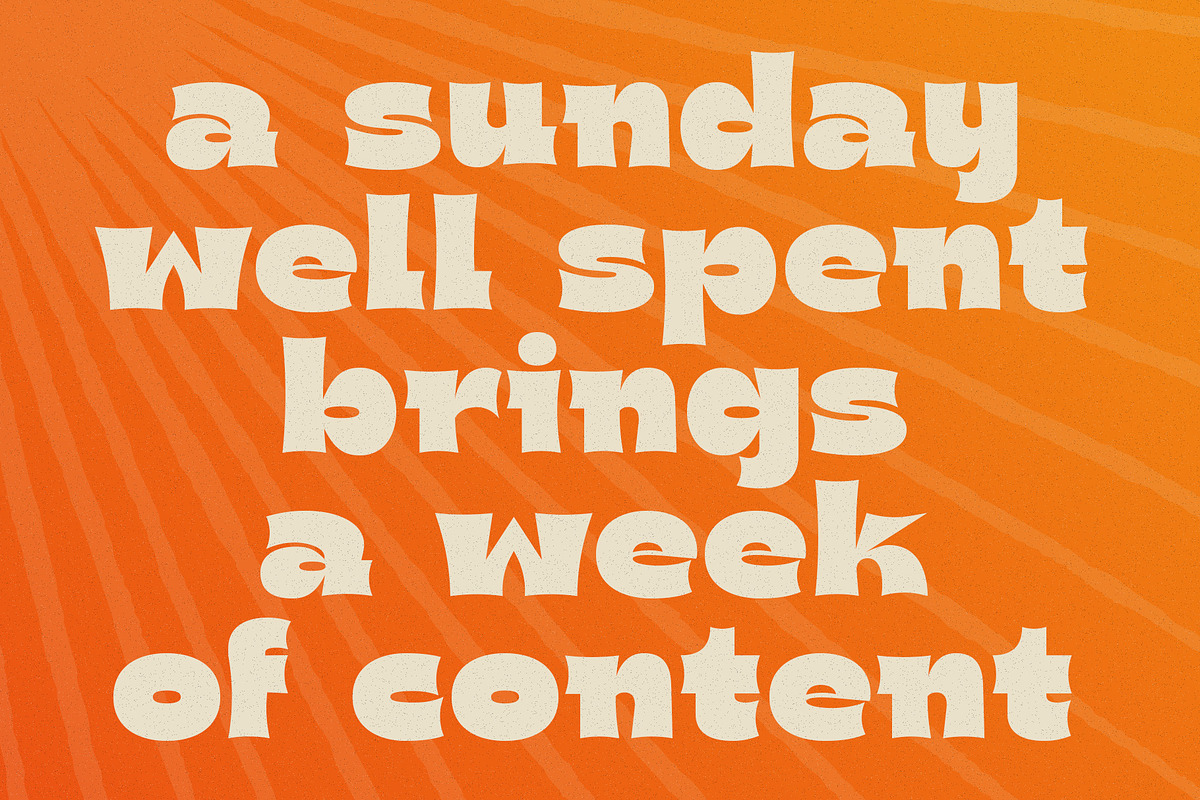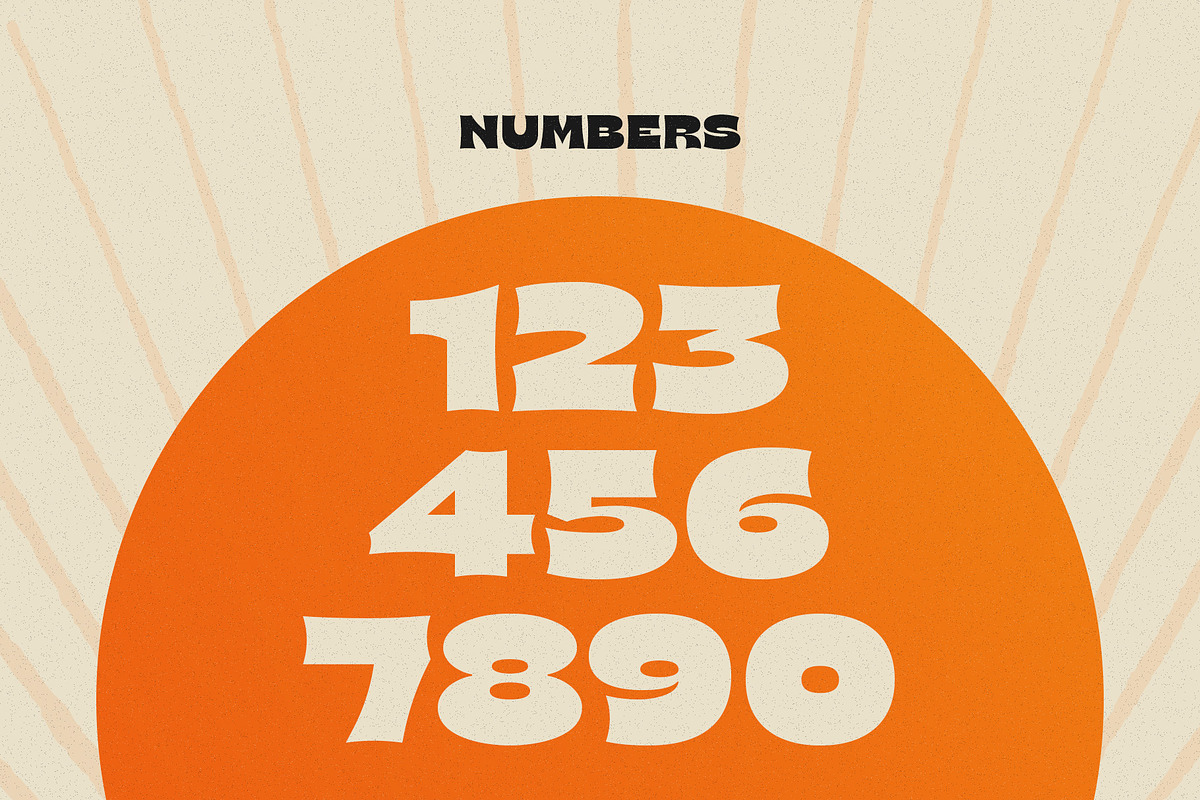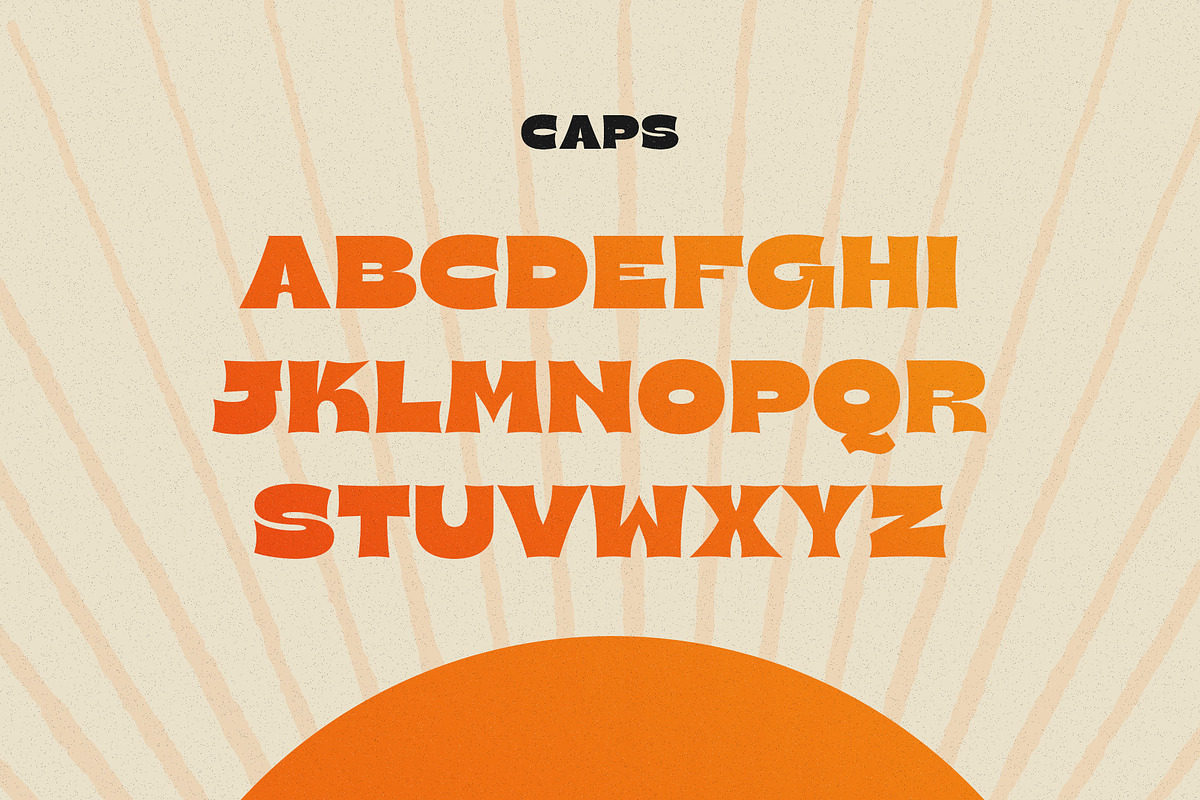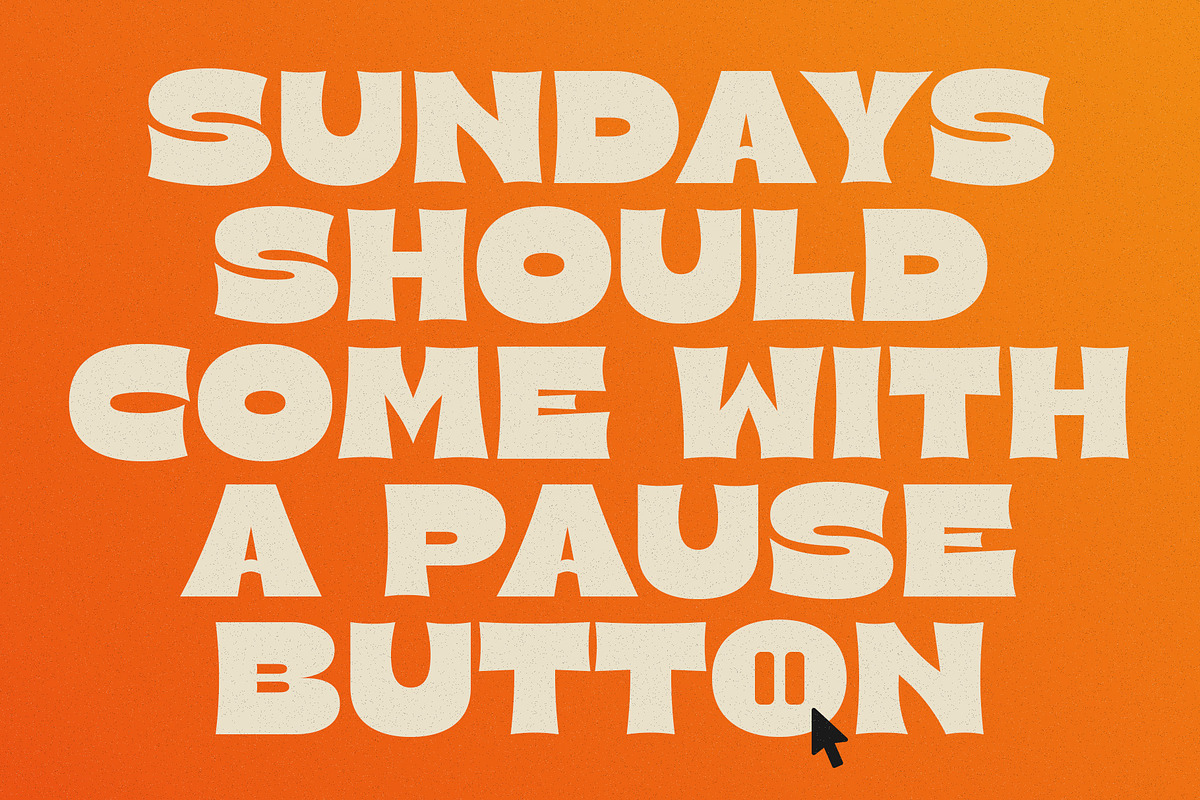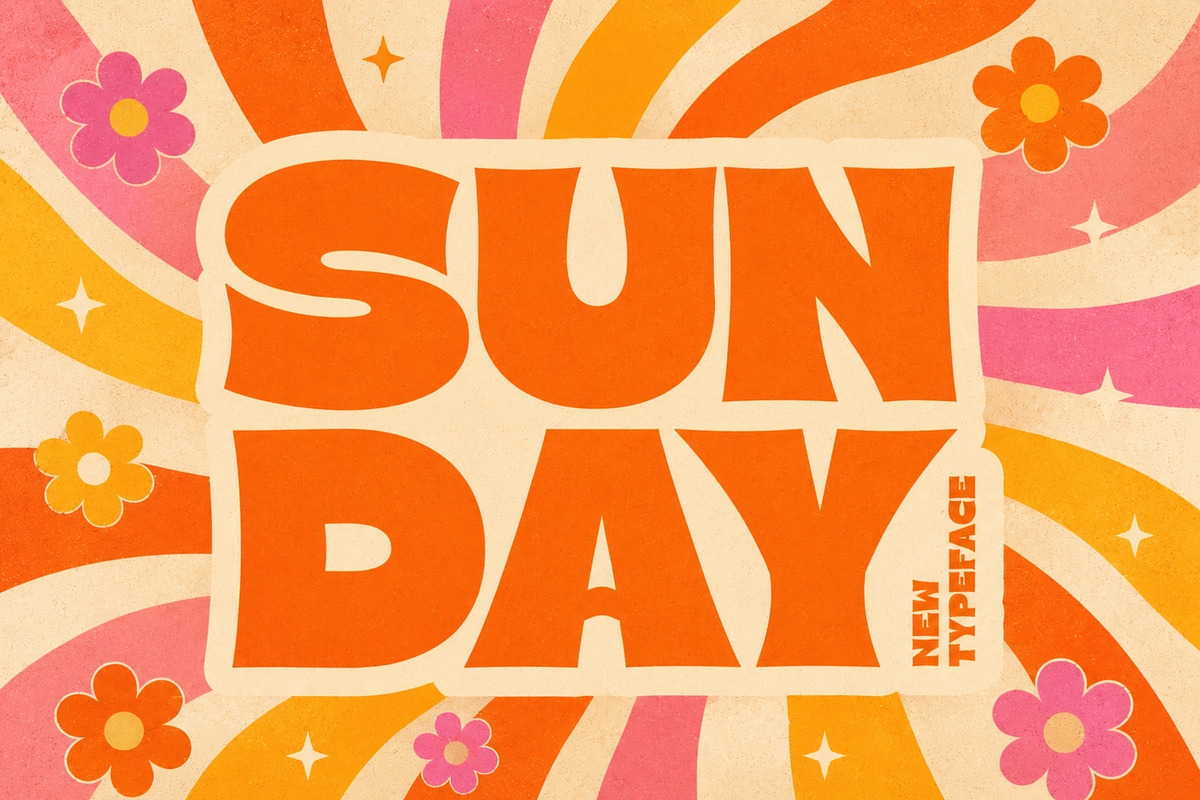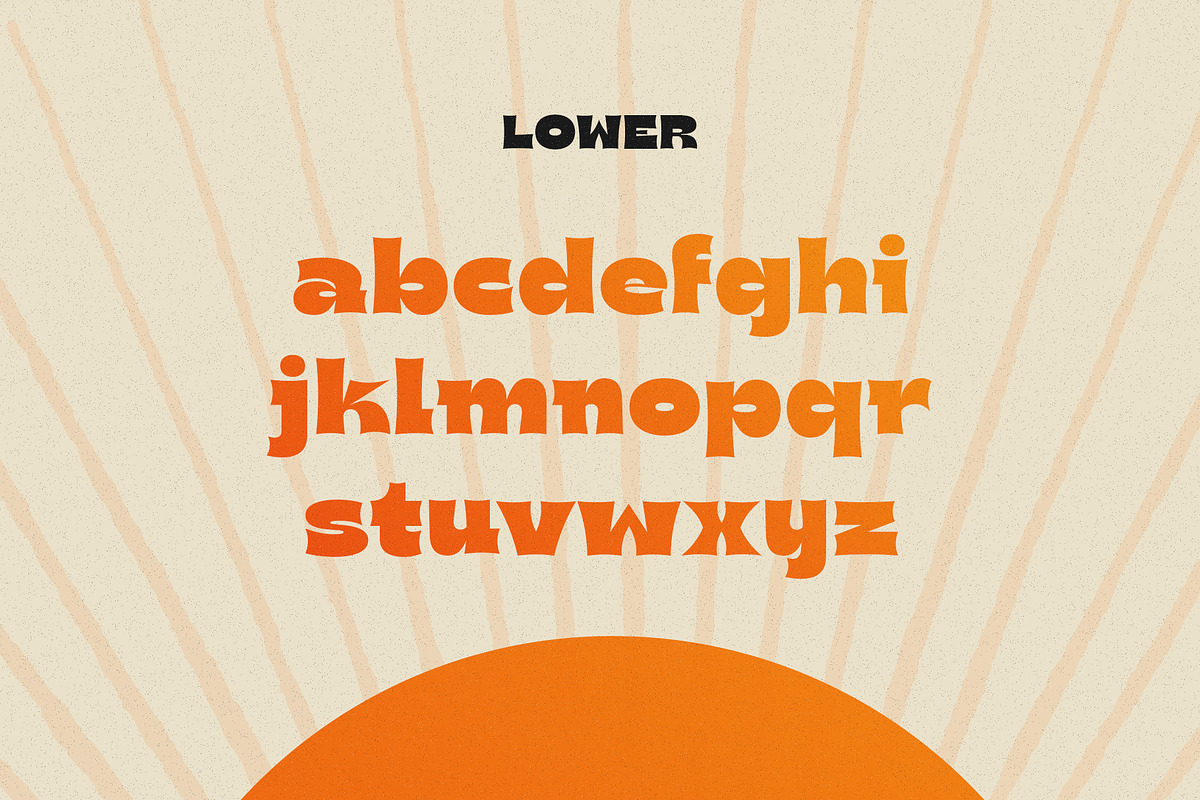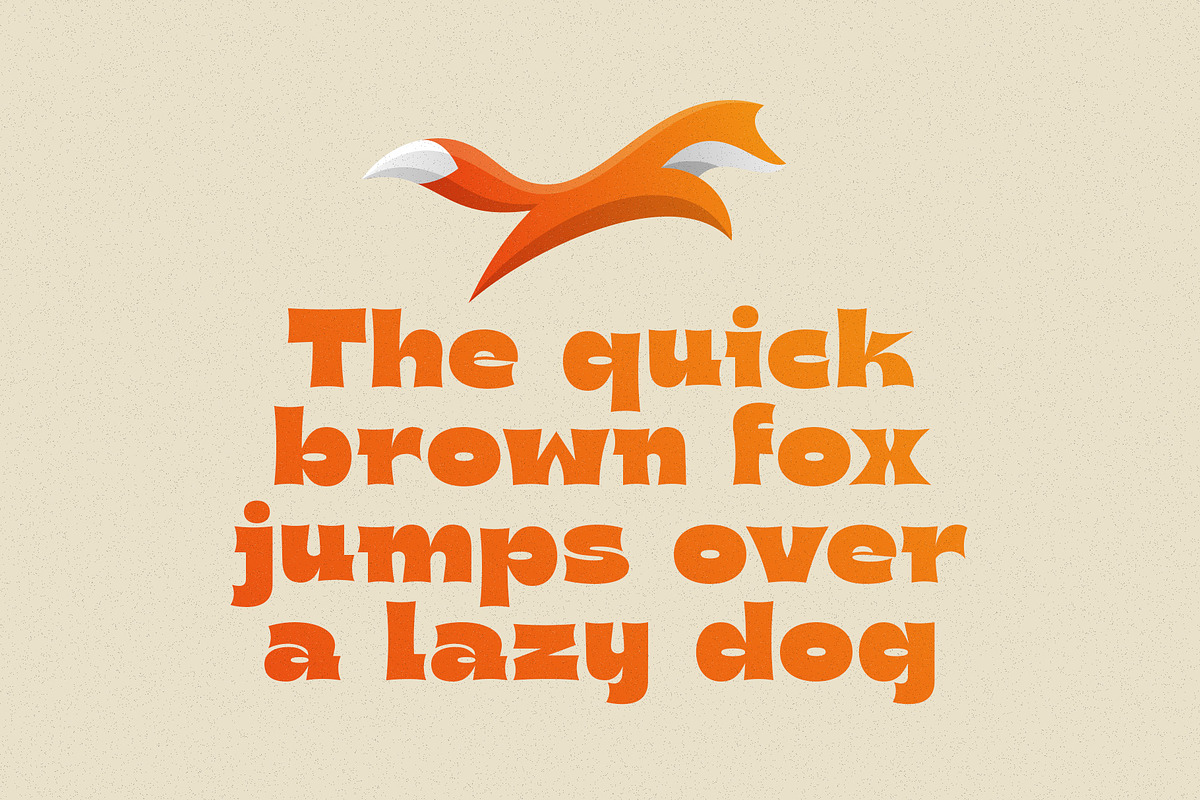
Sunday - Bold & Beautiful
Sunday is warm and inviting typeface designed for impact. Whether you want to make a headline, logo, print, t-shirt, phone case, mug or simply a rad design, Sunday delivers. Thanks to its playful nature, this font can be used for modern and vintage designs.